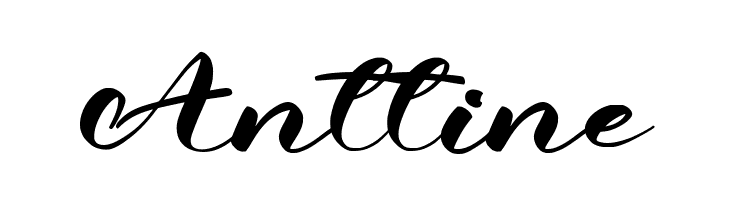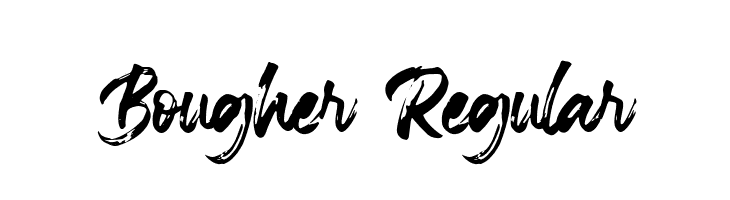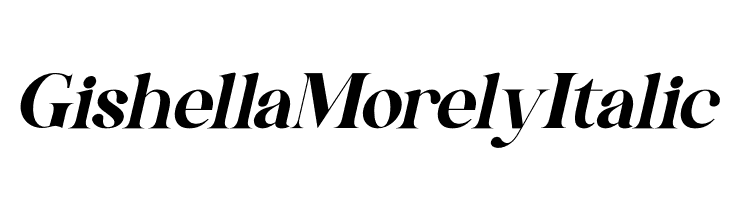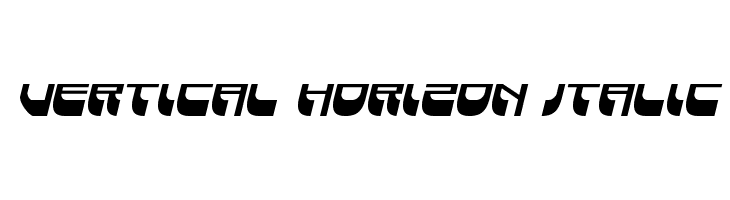
A playful and elegant script font with a handwritten style.
A bold, flowing script font with elegant, connected characters.
A bold, textured font with a vintage stamp-like appearance.
A playful, cursive script font with whimsical loops and embellishments.
A playful and casual script font with thin, flowing strokes and a hand-drawn feel.
A bold, playful font with thick, rounded letters and a retro vibe.
A futuristic, oblique font with bold, geometric characters and rounded edges.
A playful, handwritten font with smooth curves and a casual style.
A whimsical and playful font with curly, looping strokes and elegant flourishes.
A playful, bold font with rounded edges and a hand-drawn style.